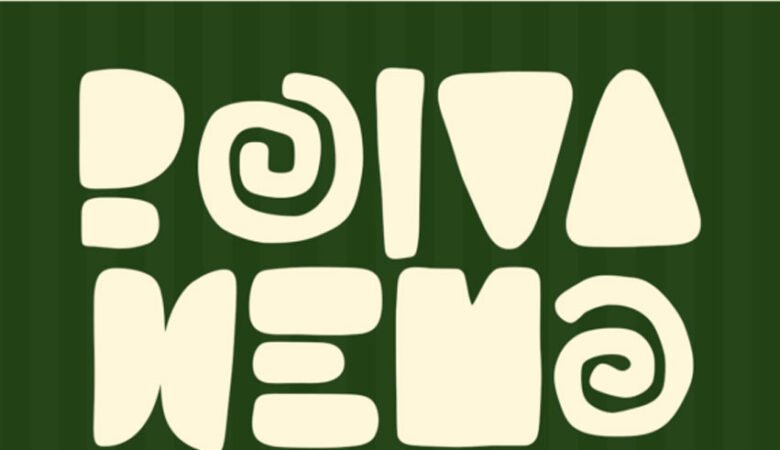
Baby School Font is an authentic and chunky lettered display font.
dd this beautiful font to each of your creative ideas and notice how it makes them stand out!